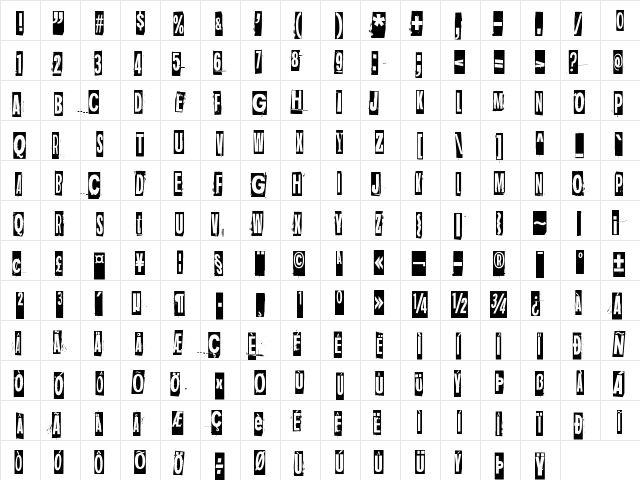
Dark monday black Regular Font Preview
Dark monday black Regular
Dark monday black Regular Font Details
Design Context for Dark monday black Typeface
Dark monday black is a composed and adaptable typeface that performs quietly and consistently across a wide range of design contexts.